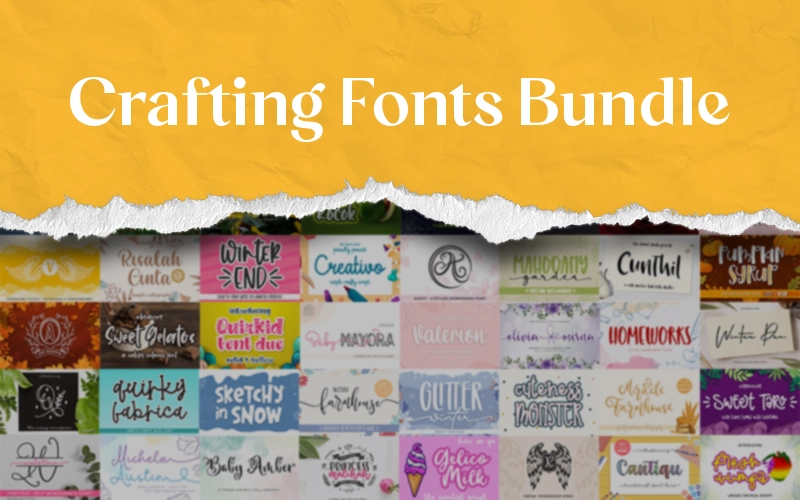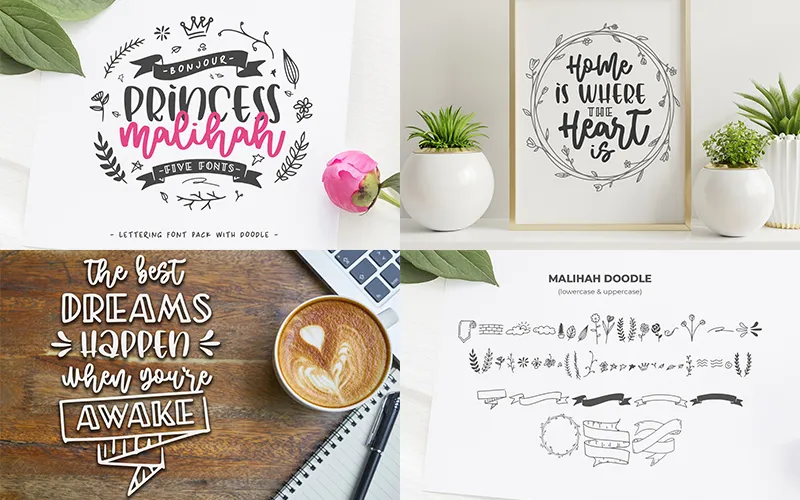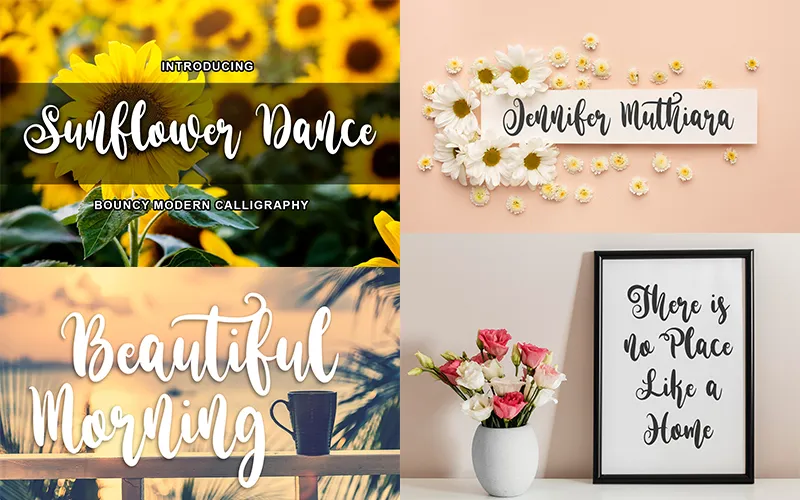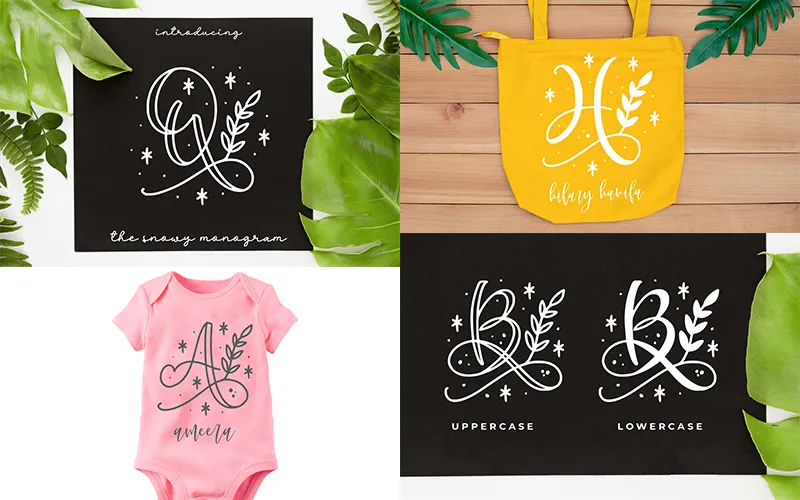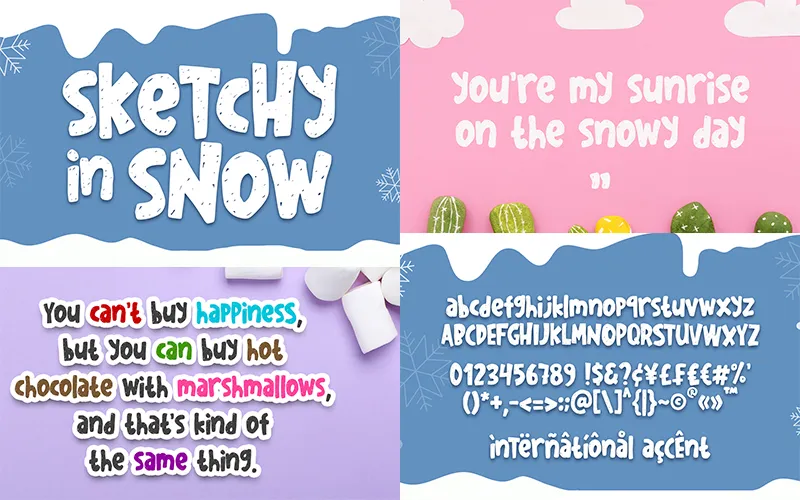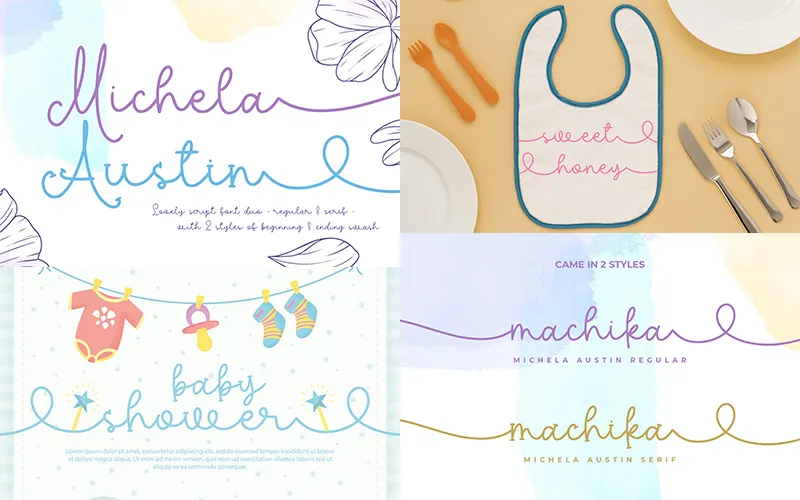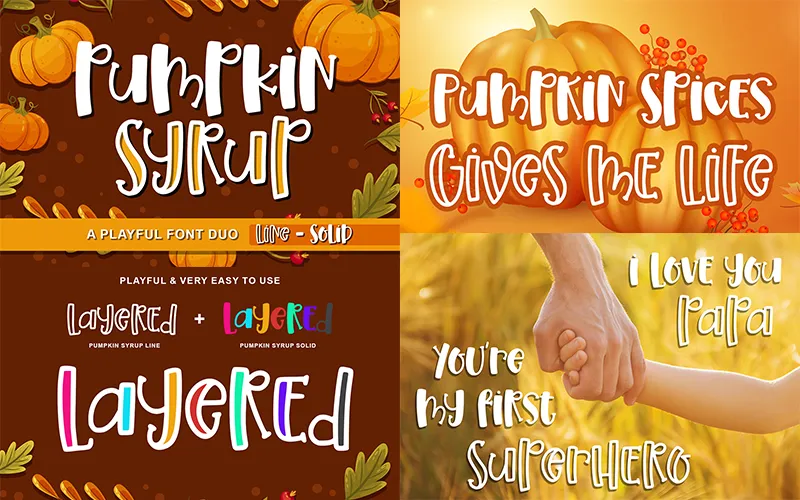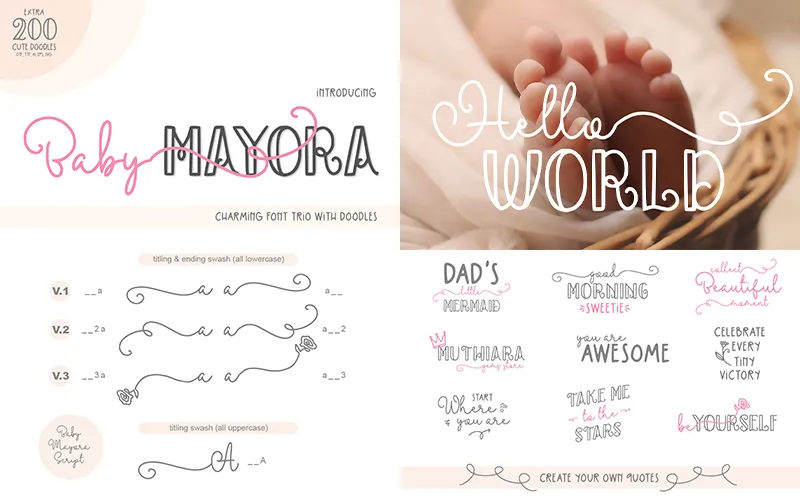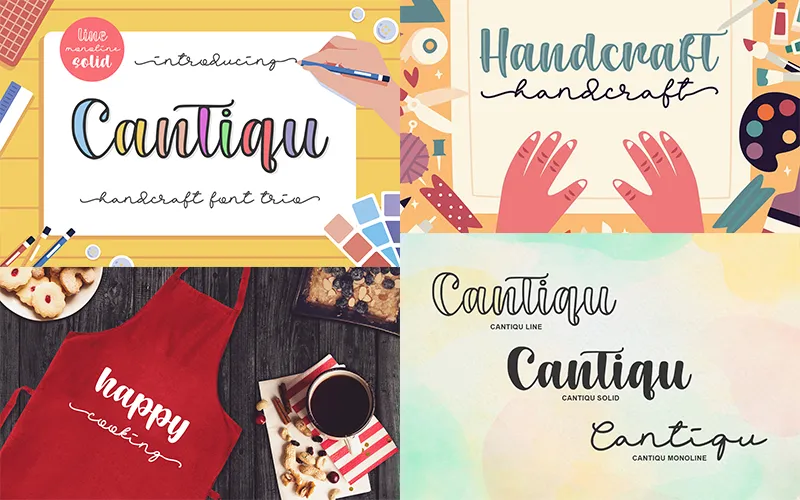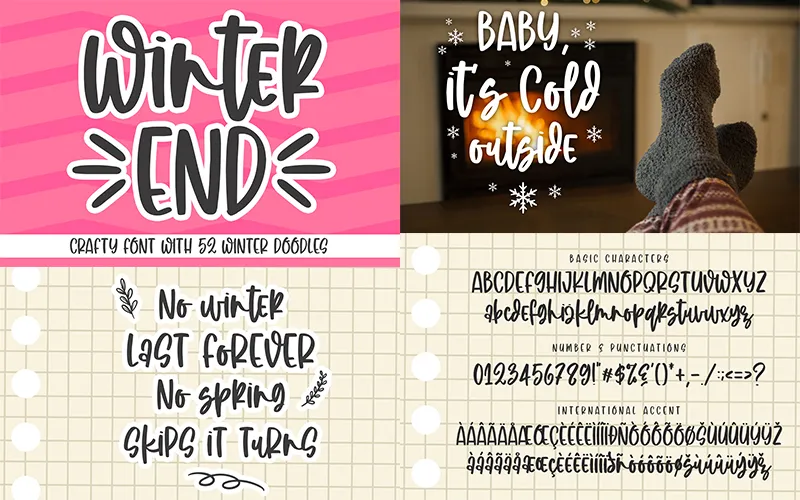
• 71 Crafting Fonts Across 47 Typefaces
• Includes Special Characters & Symbols
Crafting Fonts Bundle
This bundle is a collection of 71 Crafting Fonts across 47 typefaces, available in OpenType Font (OTF) format.
These crafting fonts offer a variety of calligraphy, kids, monogram, doodles, and many more that bring warmth and personality to any design project.
You can use these fonts to create handmade cards, t-shirt designs, branding materials, or any digital product.
The Crafting Fonts Include:
• Alpukat Kocok
• Artmy Ornament
• Artmy Solid
• Auro Monogram
• Austy Monogram
• Baby Amber
• Baby Mayora Doodle
• Baby Mayora Sans
• Baby Mayora Script
• Baby Mayora Slab
• Blessed Farmhouse A
• Blessed Farmhouse B
• Bologna Script
• Cantiqu Line
• Cantiqu Monoline
• Cantiqu Solid
• Creativo Italic
• Creativo
• Cunthil Doodle
• Cunthil
• Cuteness Monster
• Deallove
• Depita
• Faradiba
• Fresh Wumpa
• Gelico Milk
• Glitter Winter Sans
• Glitter Winter Script
• Grafite
• Home of Smile
• Homeworks
• Immortal Paradies
• Kepak
• Lovintime
• Mahogany Garden Doodle
• Mahogany Garden Script
• Mahogany Garden Slab
• Malihah Bouncy
• Malihah Doodle
• Malihah Sans
• Malihah Script
• Malihah Slab
• Michela Austin Regular
• Michela Austin Serif
• Miracle Farmhouse
• Nest Monogram
• Olivia Mirna
• Pumpkin Syrup Line
• Pumpkin Syrup Solid
• Quinn Monogram
• Quirkid A
• Quirkid B
• Quirky Fabrica
• Risalah Cinta Doodle
• Risalah Cinta
• Selomitta
• Sketchy in snow
• Spider in Sparkle
• Sunflower Dance
• Sweet Gelatos
• Sweet Taro
• Up To You
• Valerion
• Vleugel Monogram
• Walerina Monogram Split
• Walerina Monogram
• Walerina Script
• Winter End Doodles
• Winter End
• Winter Pen Italic
• Winter Pen
Sneak Peek Into The Crafting Fonts Bundle:
Art Font Previews
Mayora Font
Camilla Crafting Font
Character supported by the crafting fonts
Crafting fonts used to style bag and t-shirt
Symbols and characters supported by Character supported by the crafting fonts
Script fonts
Fun Crafting Fonts
Preview of fonts include in the bundle
Collage of typefaces included in the bundle